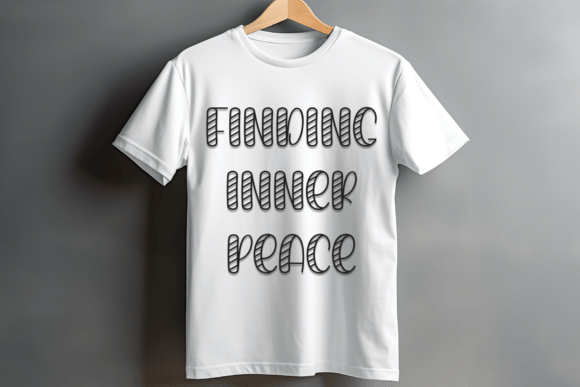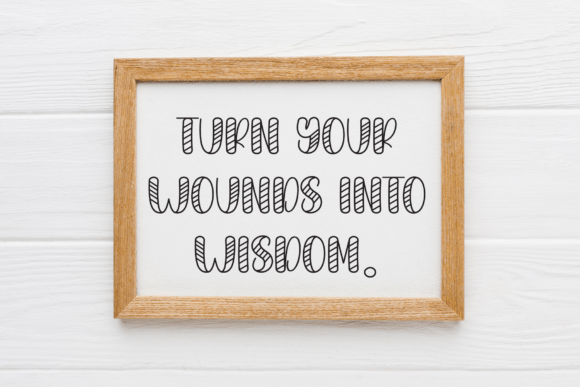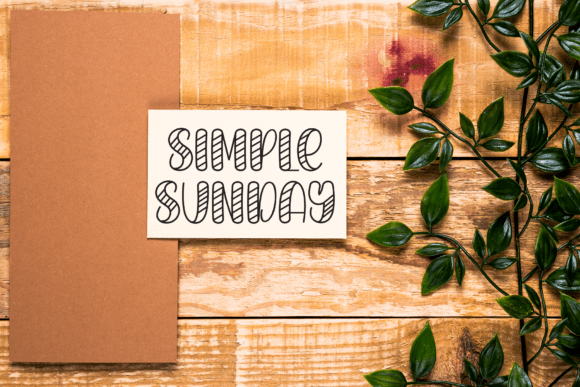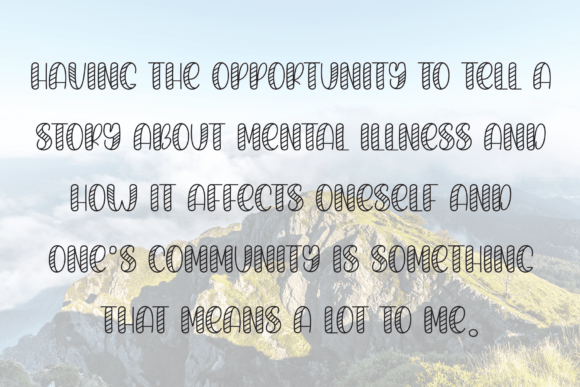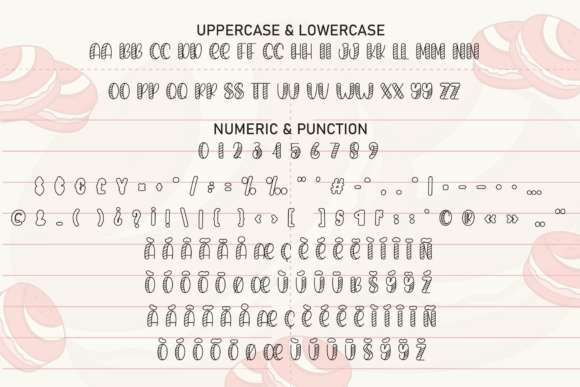
Introducing the Candy Planner Font: Elevate Your Designs with a Touch of Sweetness
Are you a designer, crafter, or DIY enthusiast looking for a unique and creative way to add a personal touch to your projects? Look no further than the Candy Planner Font, a specially designed font that offers a wide range of possibilities for your creative endeavors. In this article, we’ll explore the features and benefits of this amazing font, and how it can help you take your designs to the next level.
A Font that Offers Endless Creative Possibilities
The Candy Planner Font is more than just a font – it’s a tool that can help you create stunning designs that showcase your personality and style. With its latest style letters, this font is perfect for a variety of applications, including wall displays, wedding invitations, social media post logos, advertisements, product packaging, product designs, labels, photography, watermarks, invitations, stationery, and any project that requires tasteful handwriting.
Unlock Your Creativity with the Candy Planner Font
The Candy Planner Font is designed to help you unlock your creativity and bring your ideas to life. With its unique and stylish letters, you can add a touch of personality to any project, making it stand out from the crowd. Whether you’re a professional designer or a DIY enthusiast, this font offers the perfect way to express yourself and showcase your creativity.
The Candy Planner Font is an ideal choice for designers and crafters who want to add a personal touch to their work. With its versatility and flexibility, you can use it to create a wide range of projects, from custom wedding invitations to social media graphics, and from product packaging to labels and more.
Why Choose the Candy Planner Font?
So why choose the Candy Planner Font over other fonts on the market? Here are just a few reasons:
- Unique and stylish letters that add a touch of personality to your designs.
Get Ready to Experience the Extraordinary
In conclusion, the Candy Planner Font is a must-have for designers, crafters, and DIY enthusiasts who want to add a touch of personality and creativity to their work. With its unique and stylish letters, compatibility with a wide range of design software, and ease of use, this font offers endless possibilities for your creative endeavors. So don’t miss out on this amazing opportunity to elevate your designs and take your creativity to new heights. Get the Candy Planner Font today and start experiencing the extraordinary!